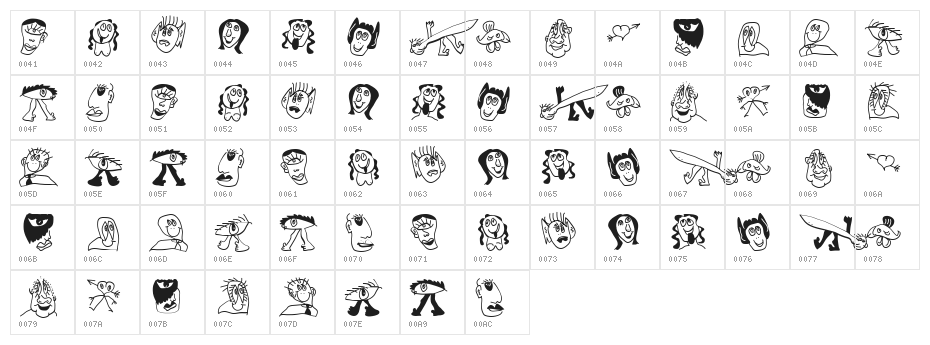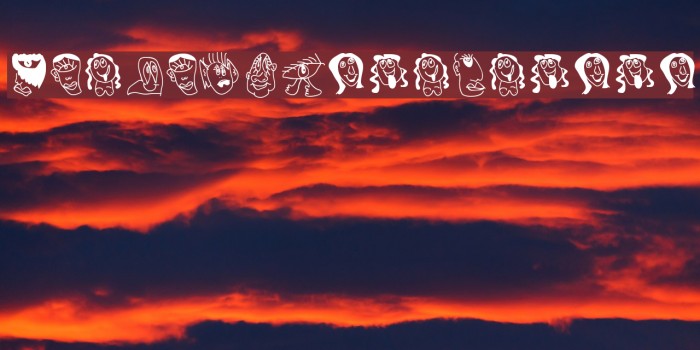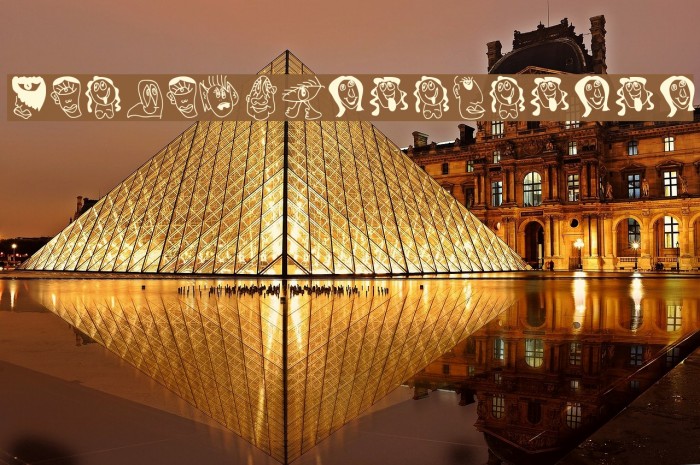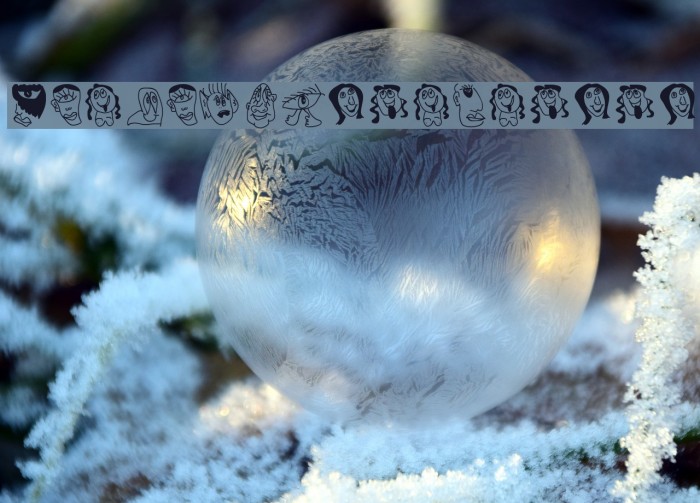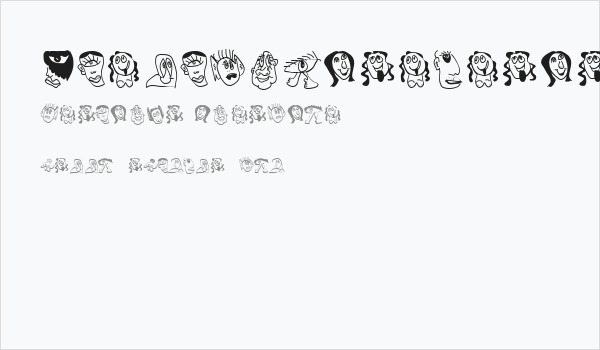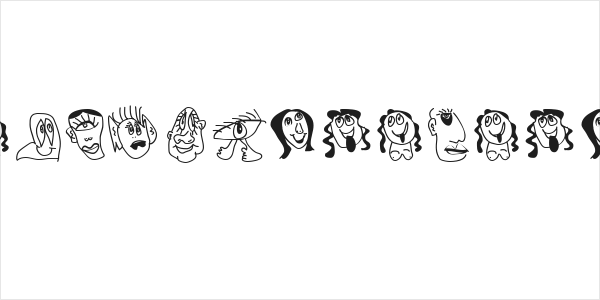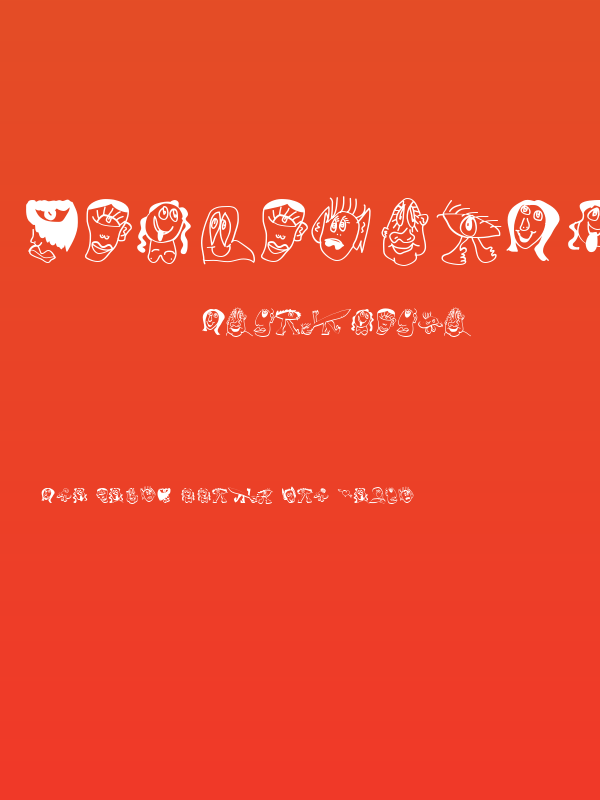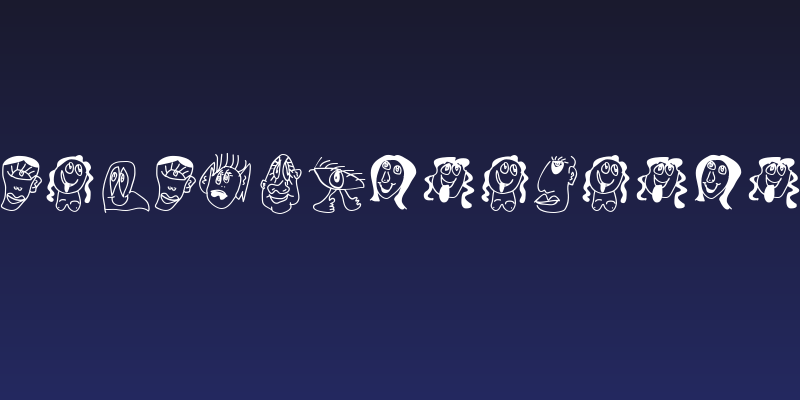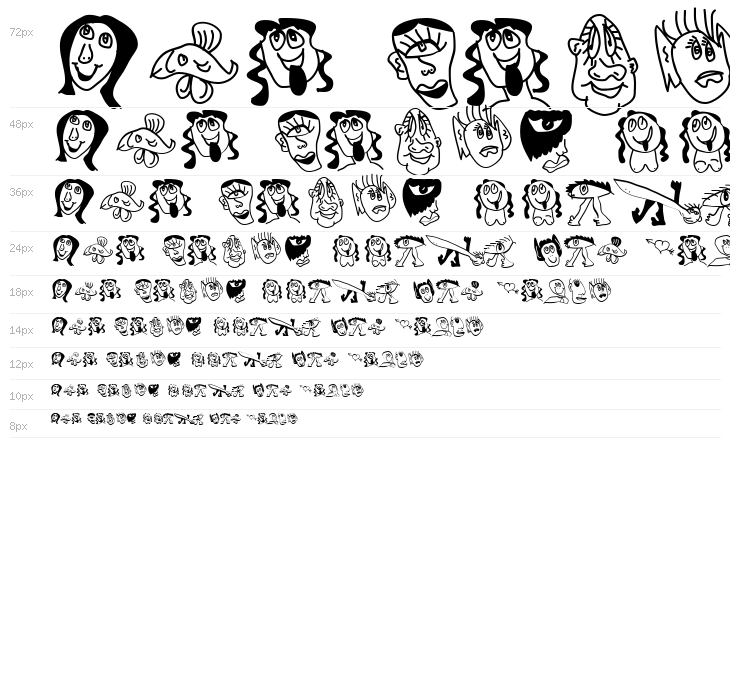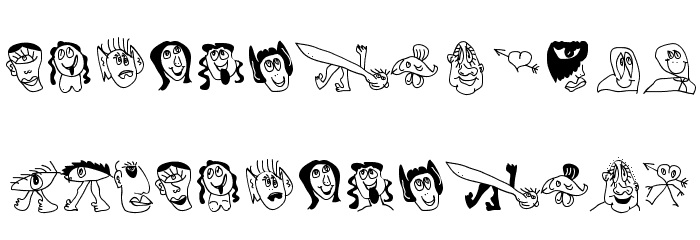
KarlasInterpreted Font
KarlasInterpreted Description
This font is a whimsical and playful collection of hand-drawn characters, each uniquely illustrated with quirky and humorous faces. The characters are highly decorative, with exaggerated features and a cartoonish style that adds a sense of fun and creativity. The font lacks uniformity, as each letter and symbol is distinct, resembling doodles or sketches rather than traditional typography. This artistic approach makes it stand out, offering a unique visual experience that is both engaging and entertaining. The font is perfect for projects that require a lighthearted and informal touch, such as children's books, comic strips, or playful branding materials.
| Use Case | Logos, Posters, Creative projects |
| Proposed Projects | Ideal for children's books, comic strips, playful branding, and creative posters. |